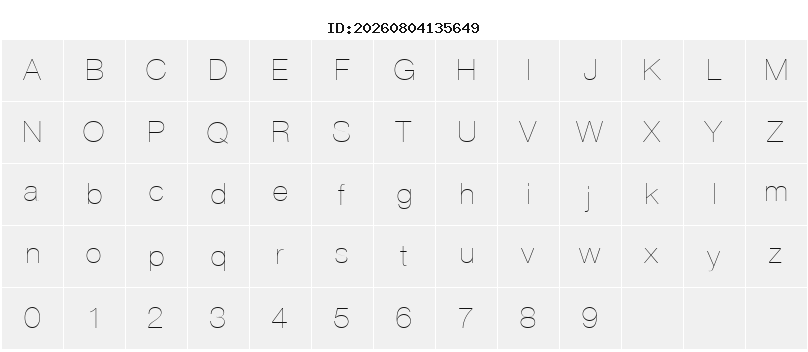
Nimbus Sans Becker PUltLig Preview
About Nimbus Sans Becker PUltLig.ttf
Nimbus Sans Becker PUltLig.ttf is a modern, elegant sans-serif font designed for ultimate readability and visual harmony. Perfect for branding, headlines, web design, and print materials.